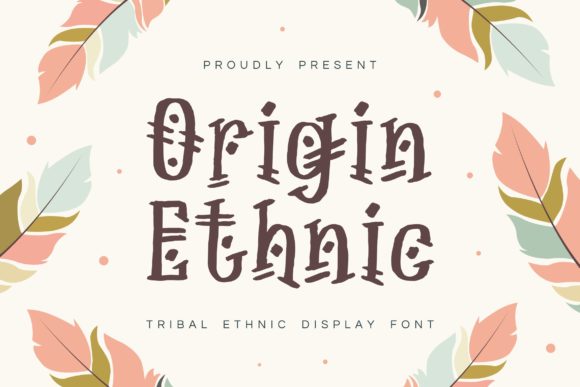
Embark on an extraordinary typographical voyage with Origin Ethnic, a captivating display font family born from the fusion of diverse cultural influences. Its meticulously crafted characters exude a raw, organic charm that echoes the timeless beauty of ancient scripts. As you immerse yourself in Origin Ethnic's world, you'll discover a treasure trove of distinct letterforms, each imbued with a rich heritage and a story waiting to be told.
Unleash your creativity and explore the boundless possibilities that await you with Origin Ethnic. Whether you're crafting captivating logos, designing eye-catching posters, or adding a touch of individuality to your social media posts, this versatile font family is your steadfast companion. Its inherent adaptability shines through in a myriad of applications, making it an indispensable tool for designers, artists, and creative entrepreneurs alike.
With Origin Ethnic at your fingertips, you'll effortlessly elevate your designs to new heights. Its bold, expressive strokes command attention, while its intricate details add depth and dimension to your creations. Let your imagination soar as you harness the power of Origin Ethnic to bring your artistic visions to life.
Incorporate Origin Ethnic into your design arsenal and witness the transformation it brings to your work. Its unique aesthetic will set you apart from the crowd, leaving a lasting impression on your audience. Immerse yourself in the captivating world of Origin Ethnic and let your creativity flourish like never before.